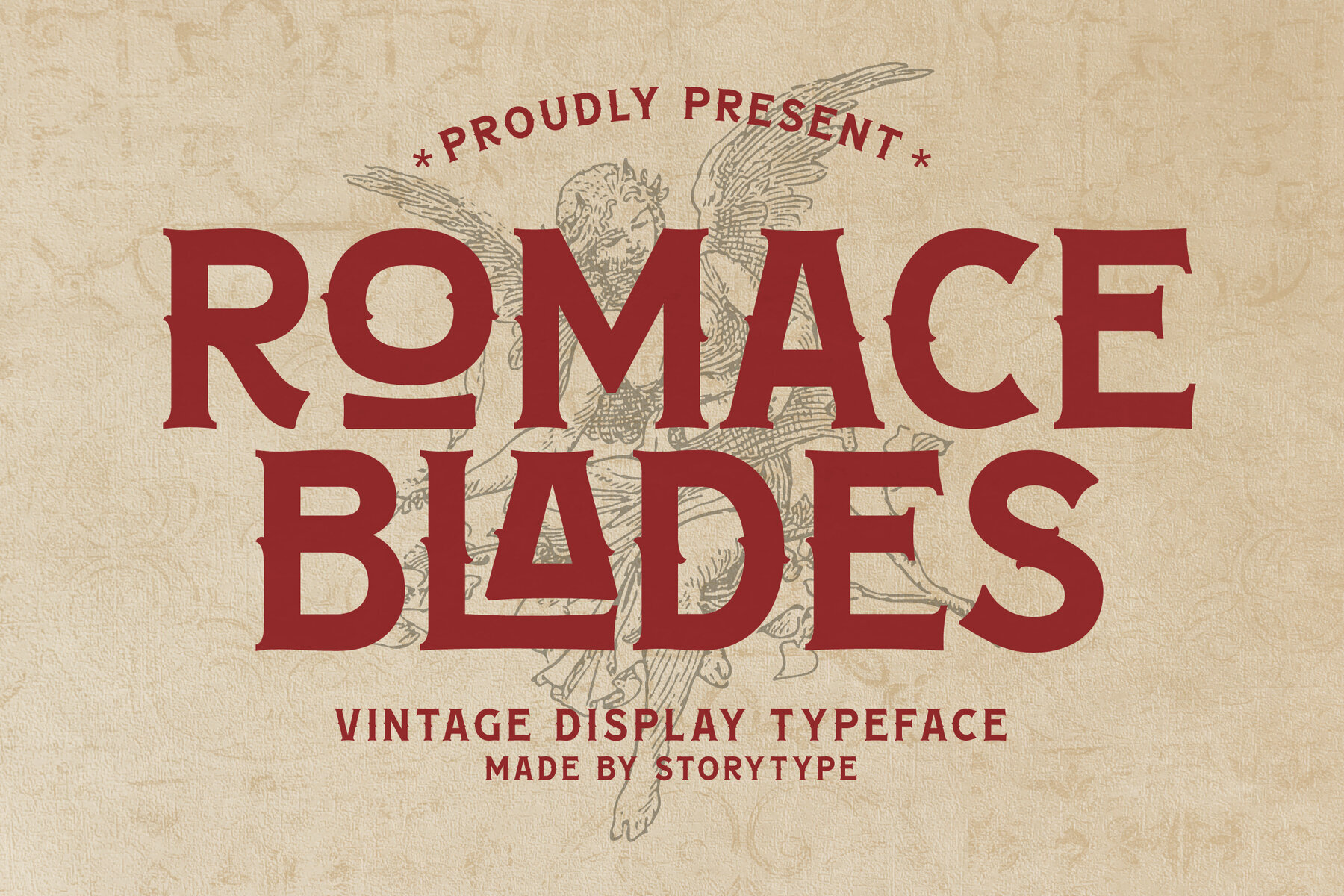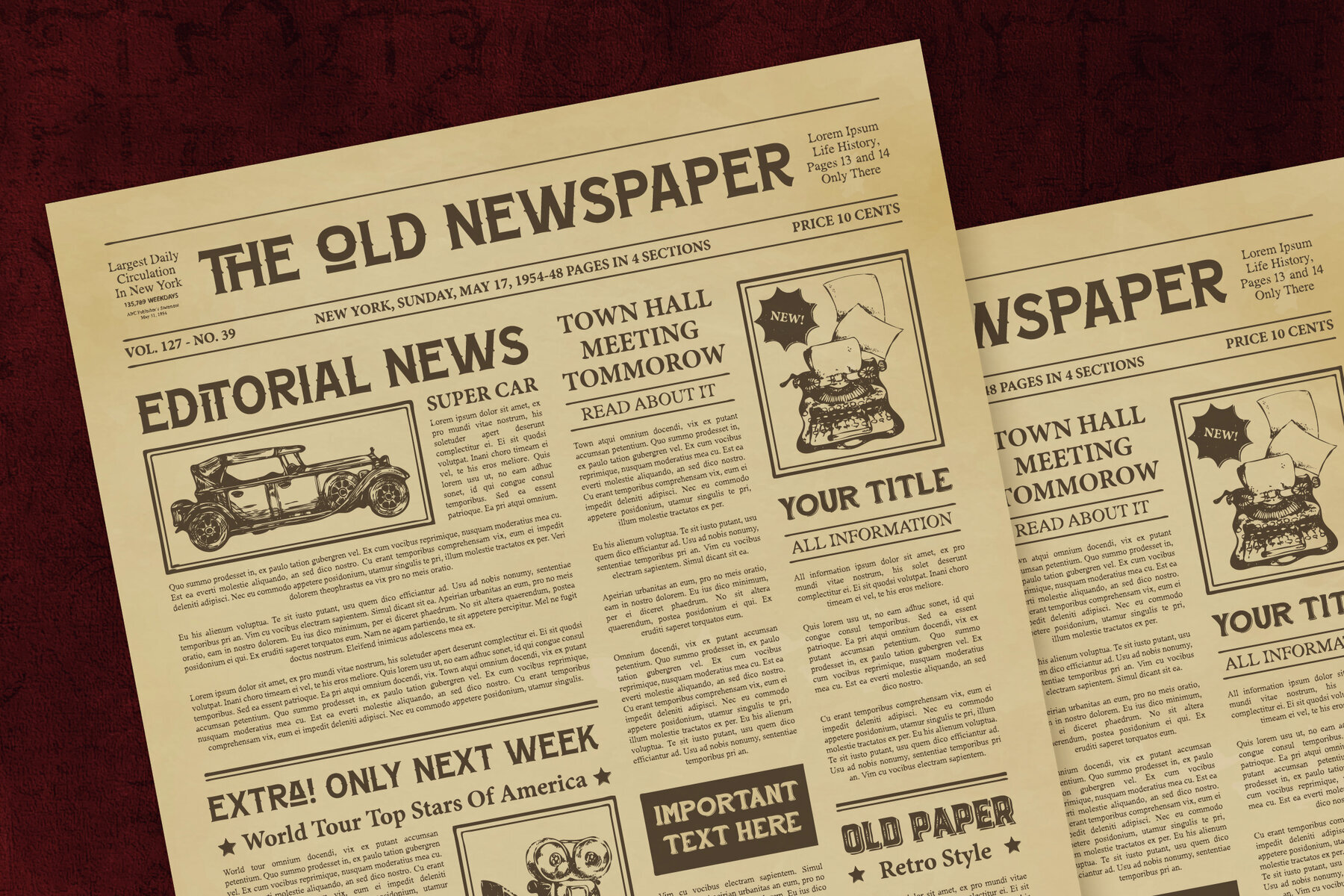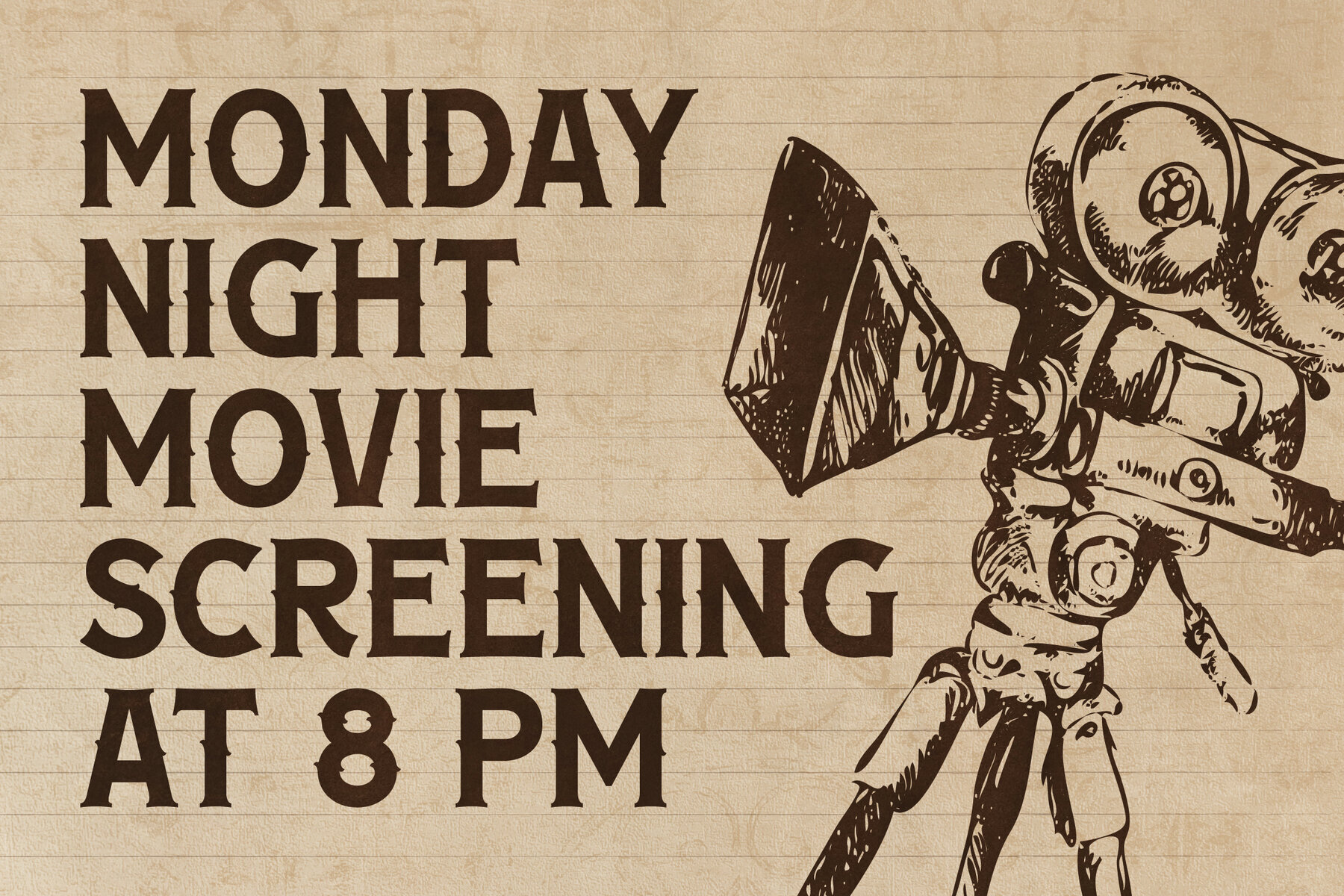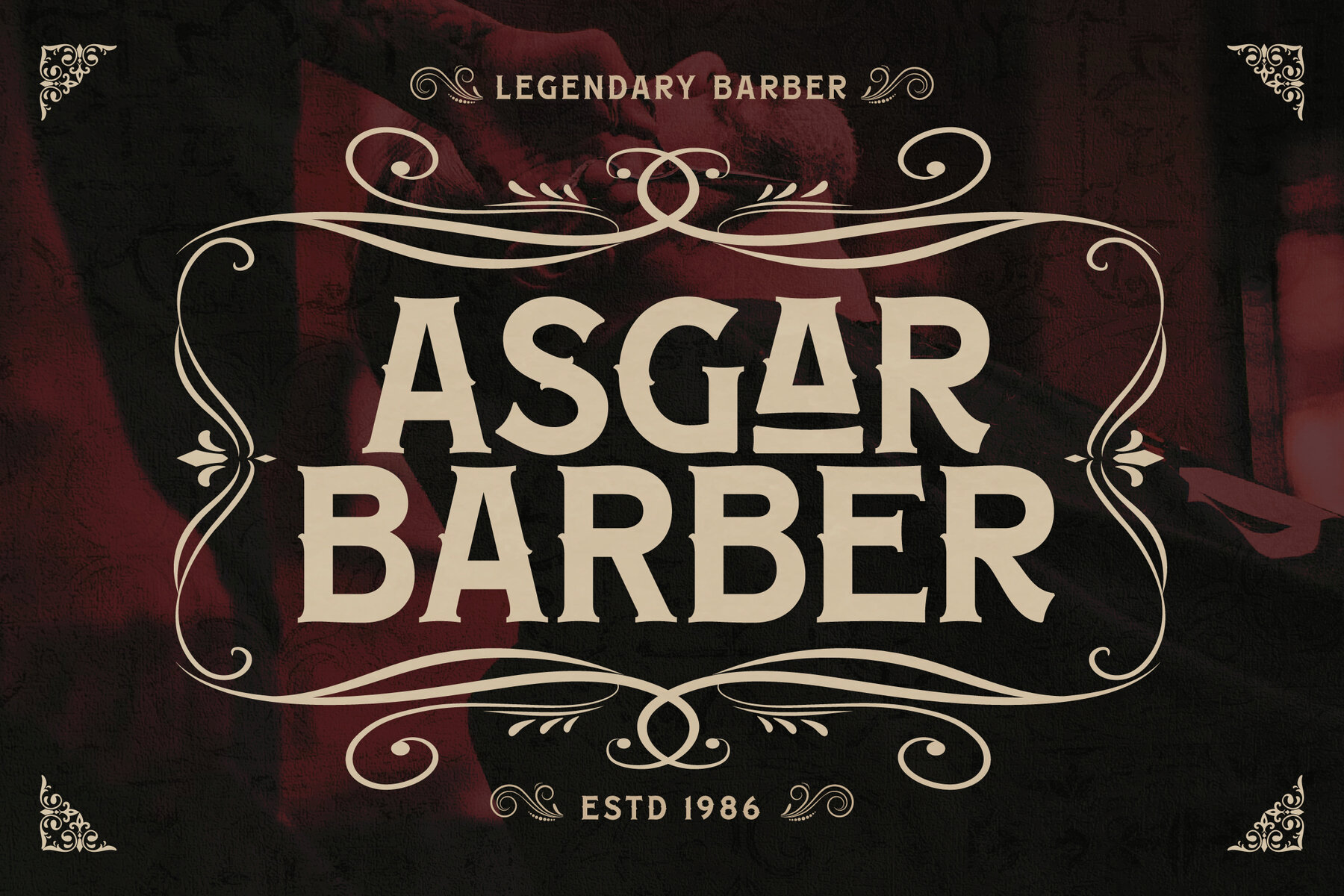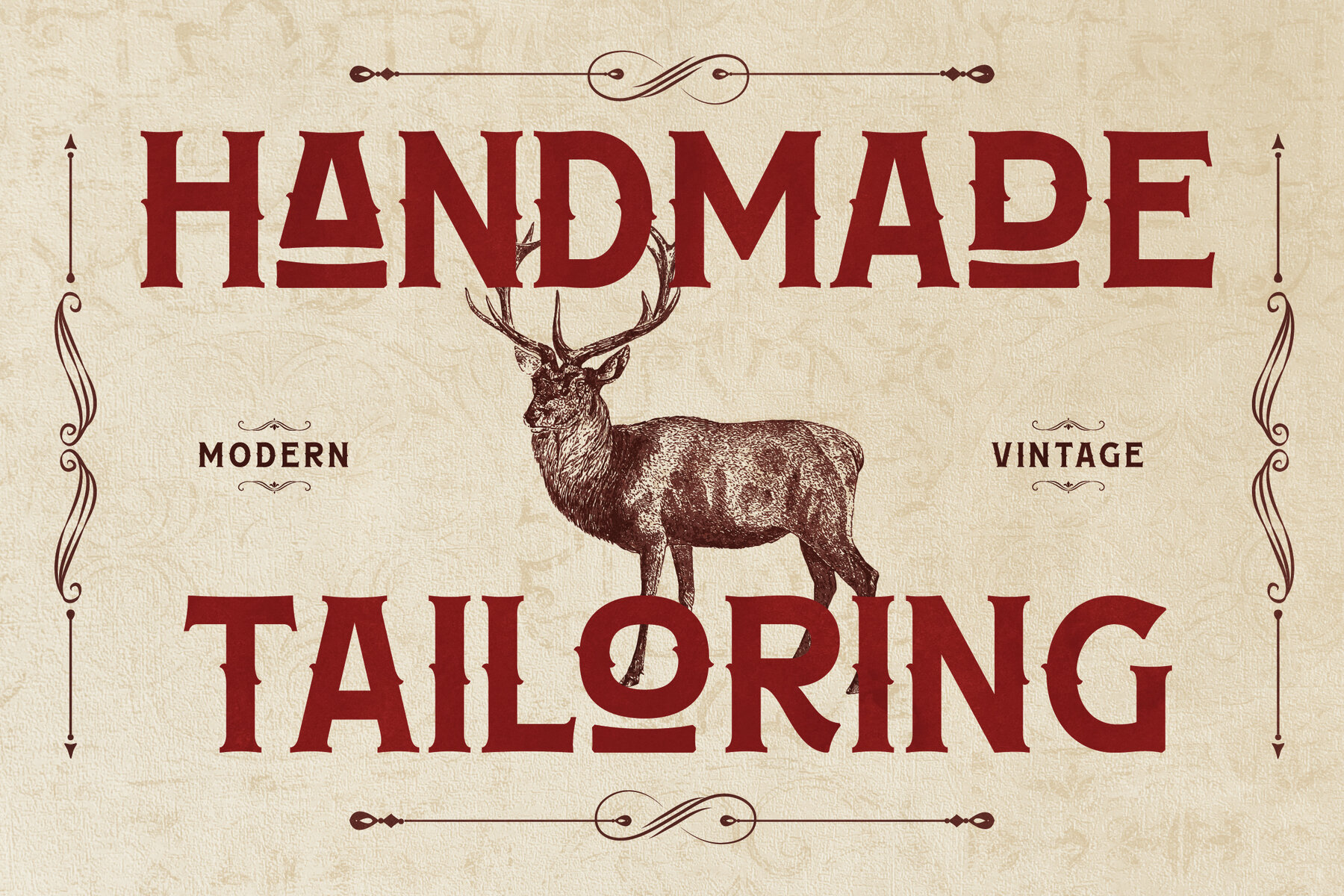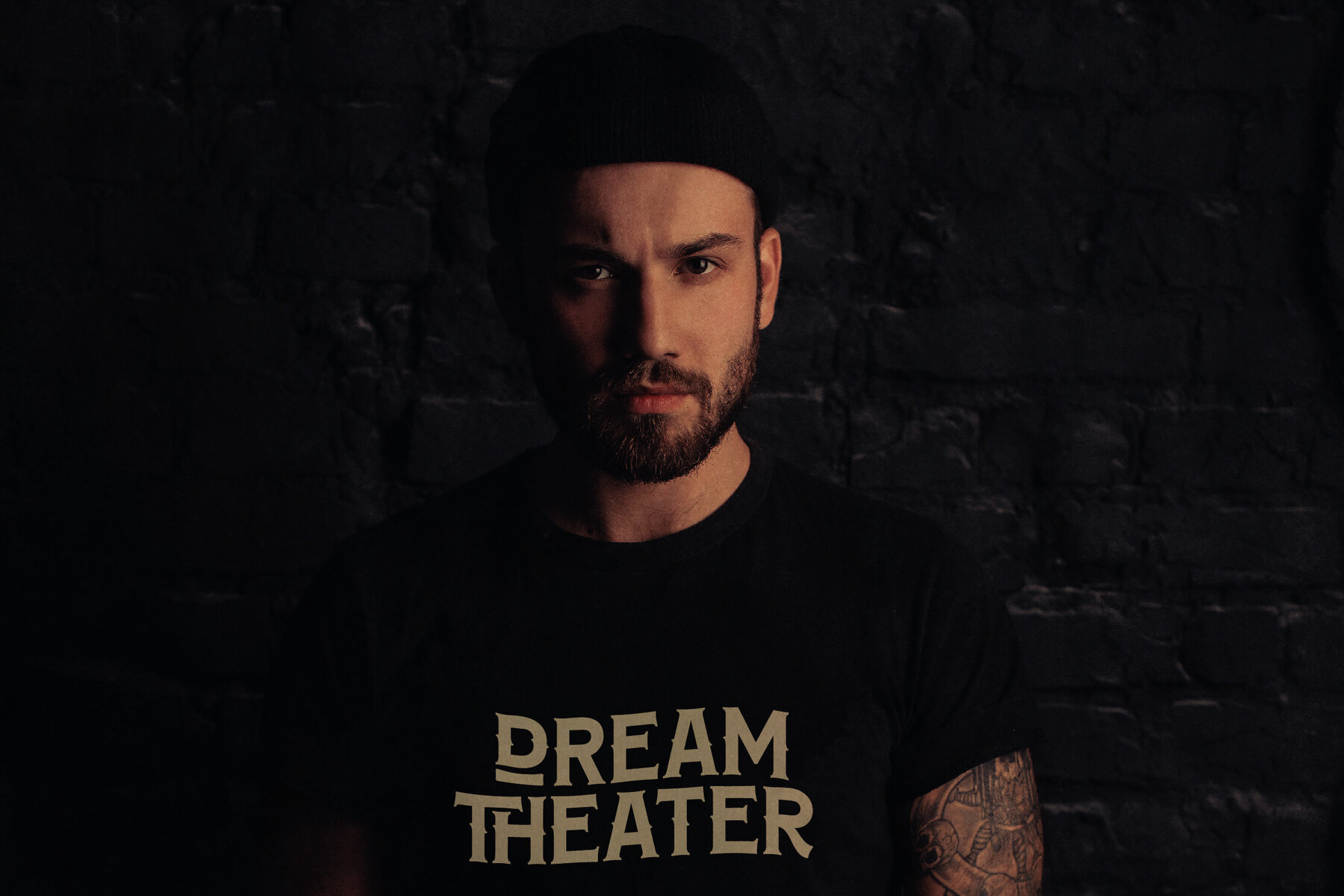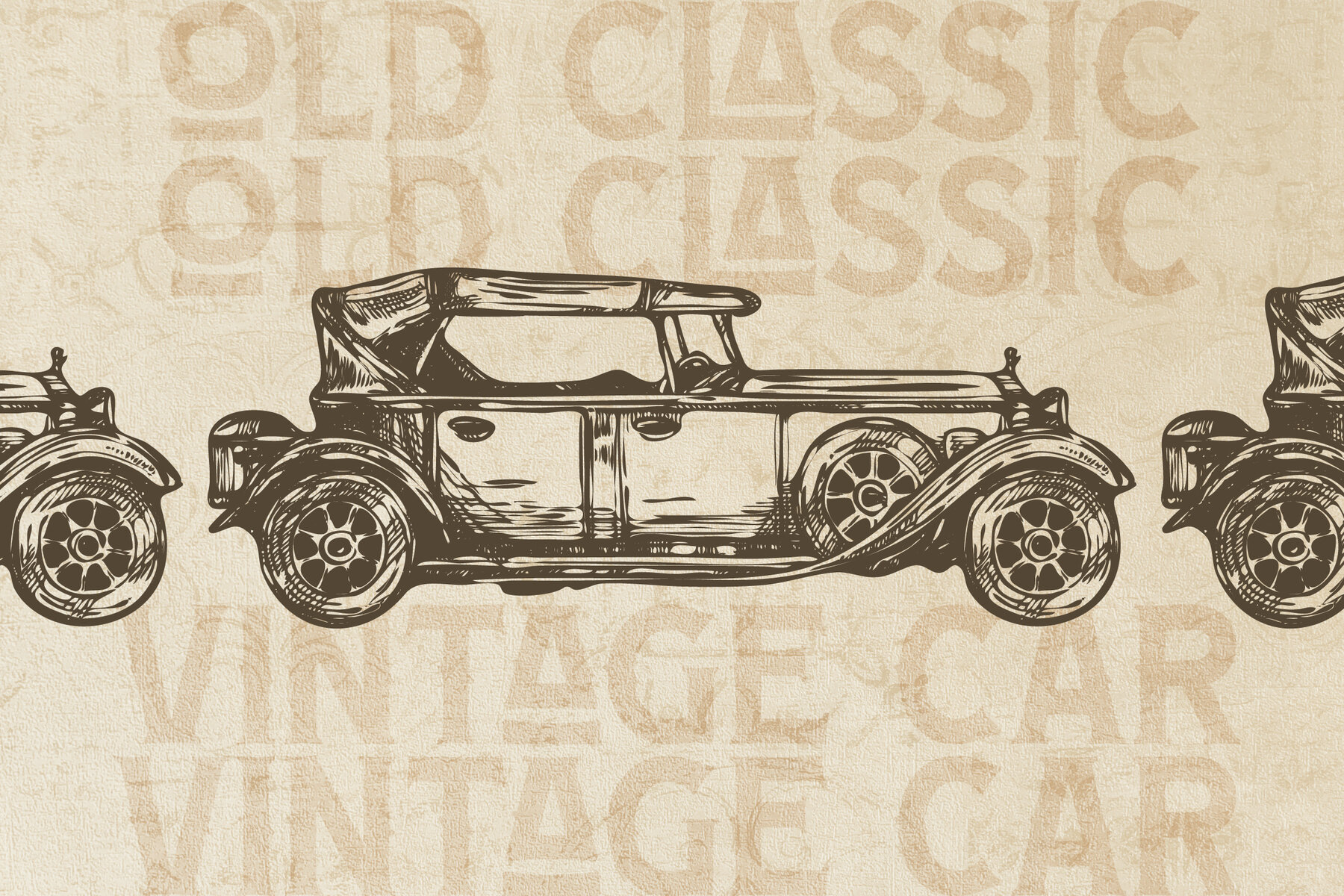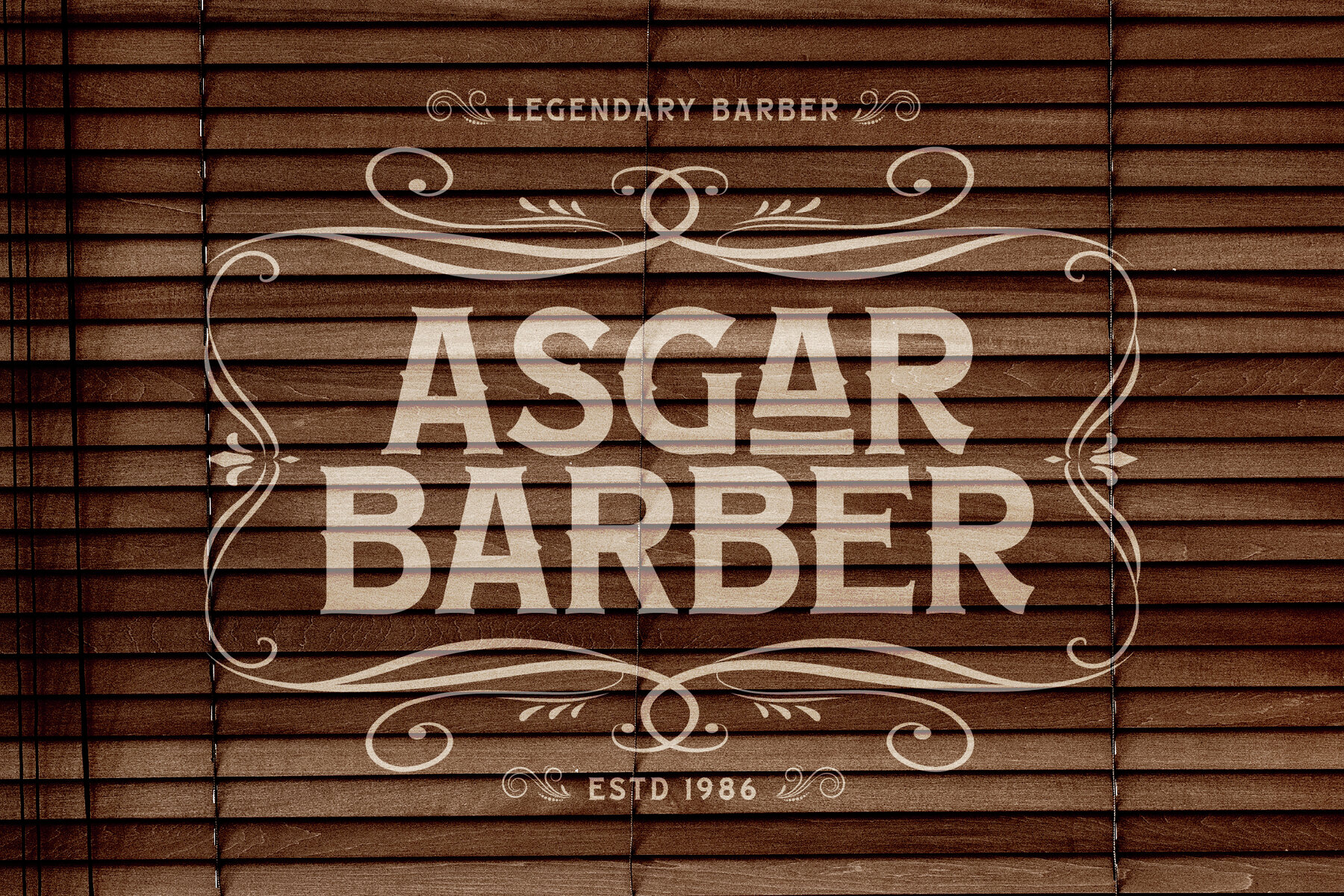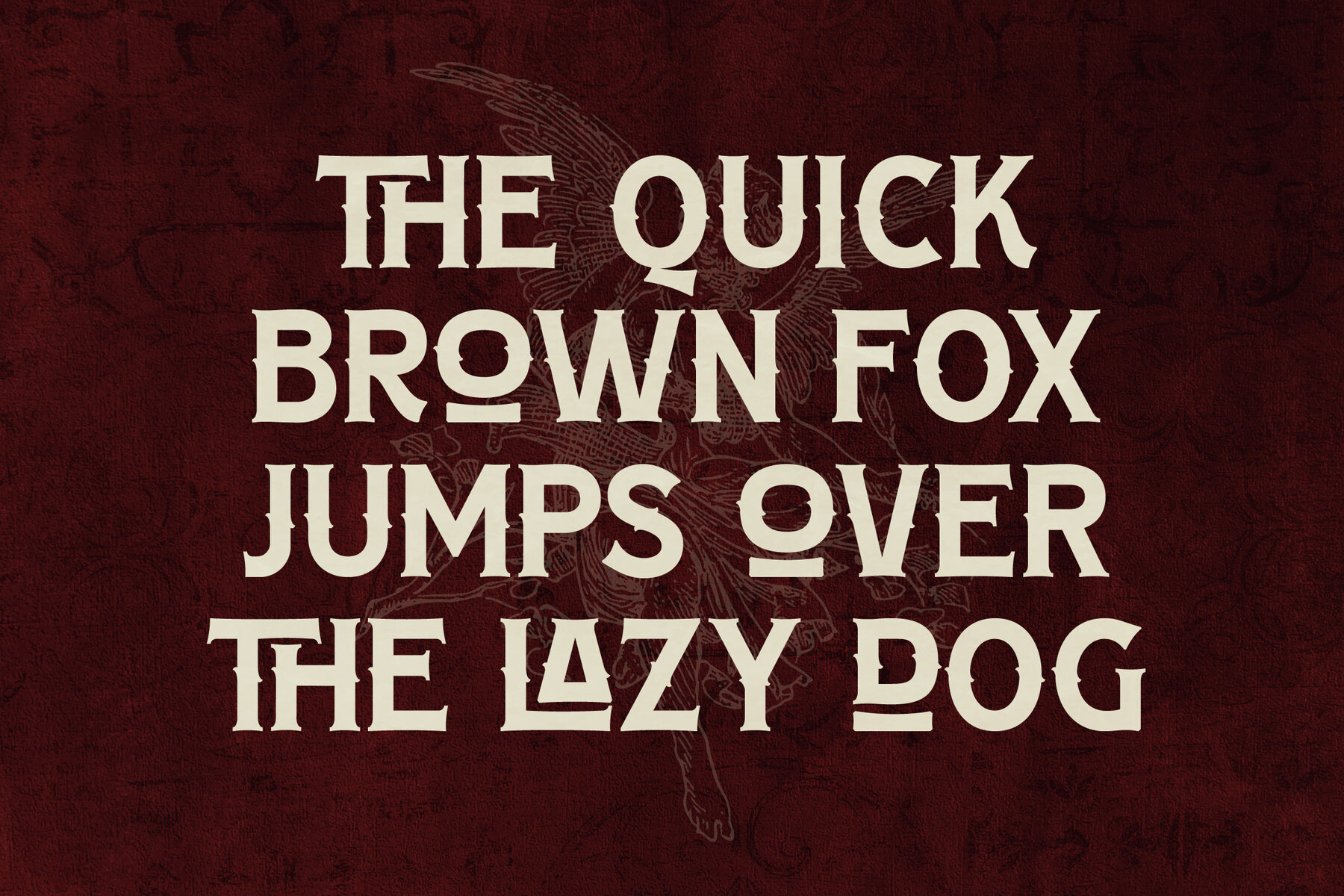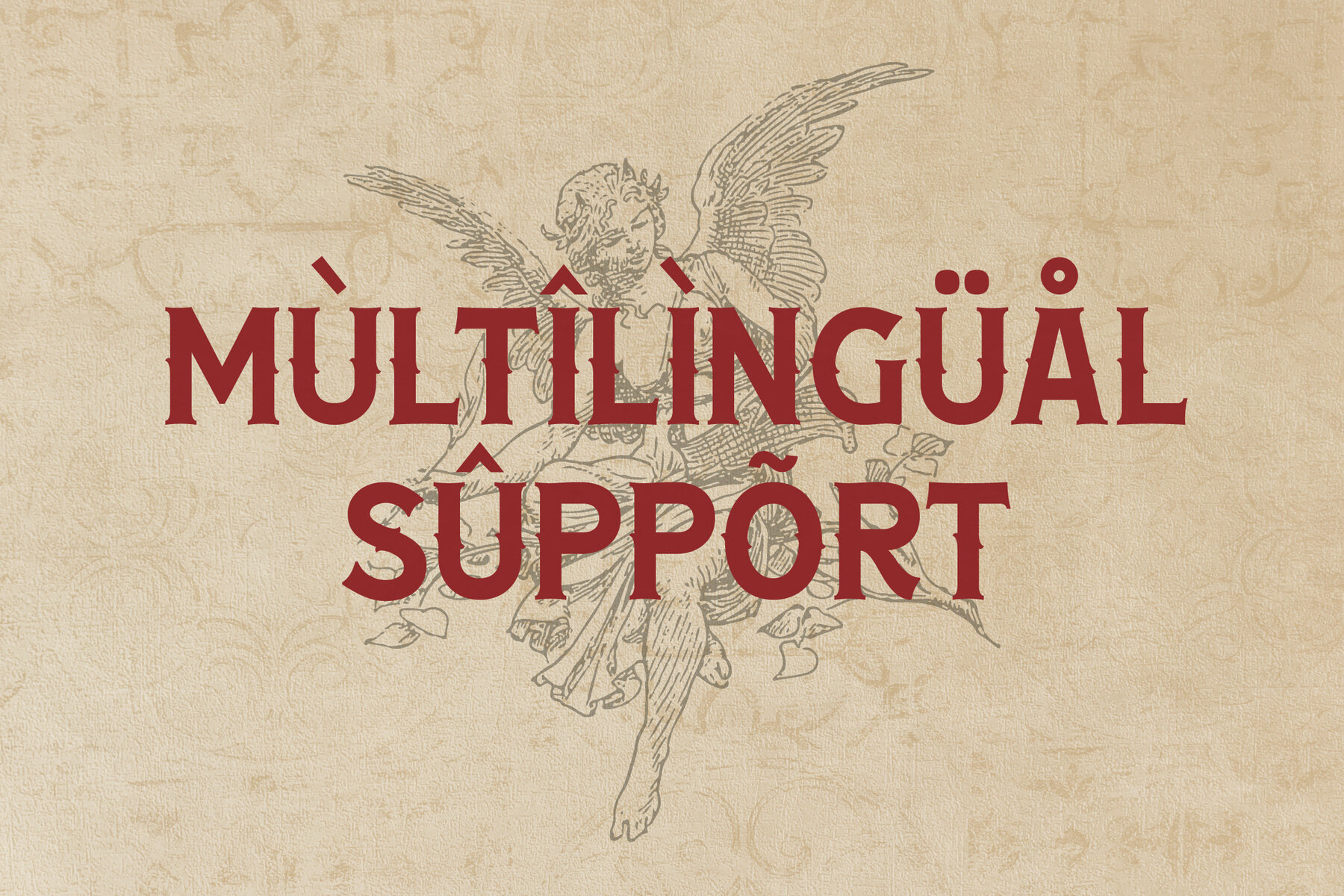
ROMACE BLADES Font
Introducing the Romace Blades Typeface by Storytype Studio, a fusion of modernity and classic elegance in serif design. This typeface stands out with its unique style, making it ideal for creating luxury logos, stunning book or movie titles, fashion brand visuals, and sophisticated magazine layouts. Its versatility also extends to clothing designs, artistic lettering, and inspiring quotes.Romace Blades Typeface